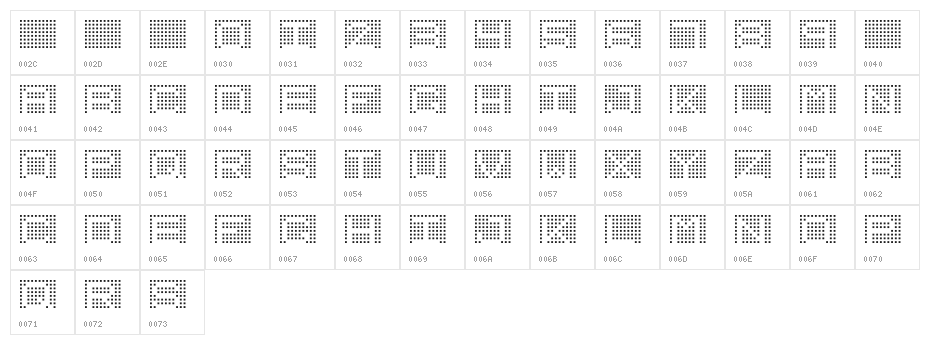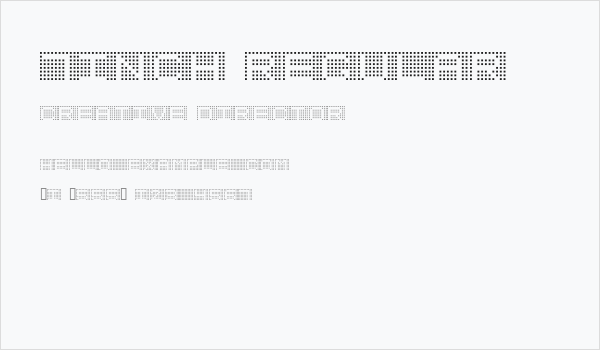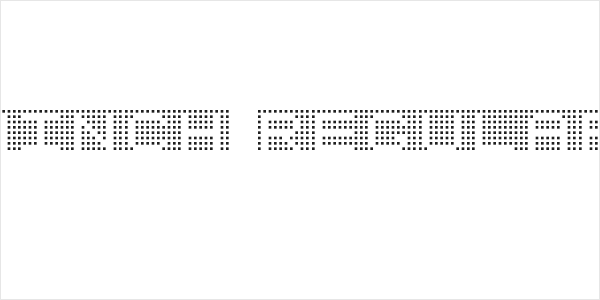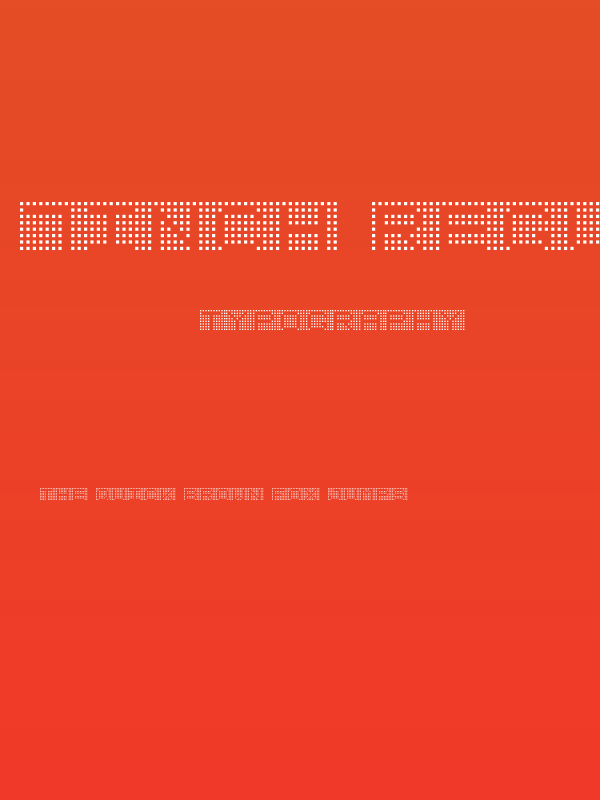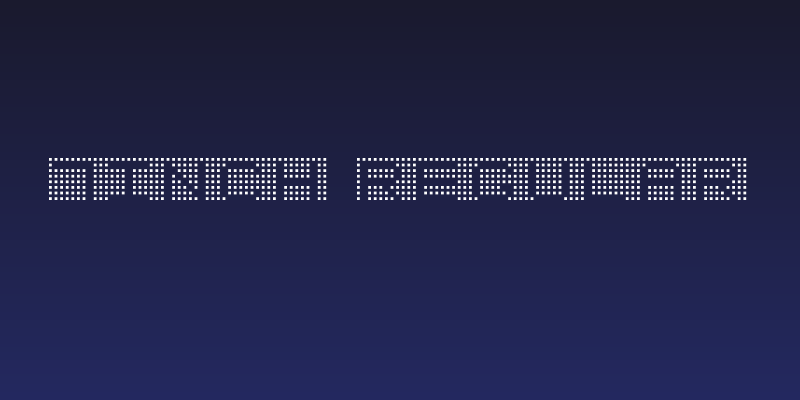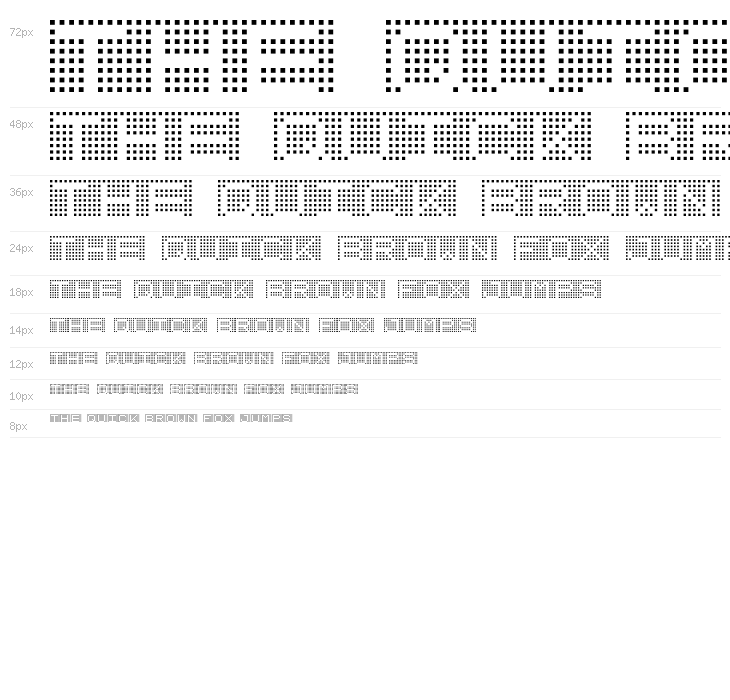
7inch Regular Font
7inch Regular Description
This font features a unique design composed entirely of small dots arranged in a grid pattern to form each character. The style is reminiscent of digital or LED displays, giving it a modern and technological feel. The characters are uniformly spaced, maintaining a consistent structure across both uppercase and lowercase letters, as well as numbers and special characters. This dotted pattern creates a distinct visual effect that is both eye-catching and readable, making it suitable for various creative applications.
| Use Case | Headlines, Logos, Digital displays |
| Proposed Projects | Ideal for digital displays, tech-themed designs, futuristic branding, and creative posters. |